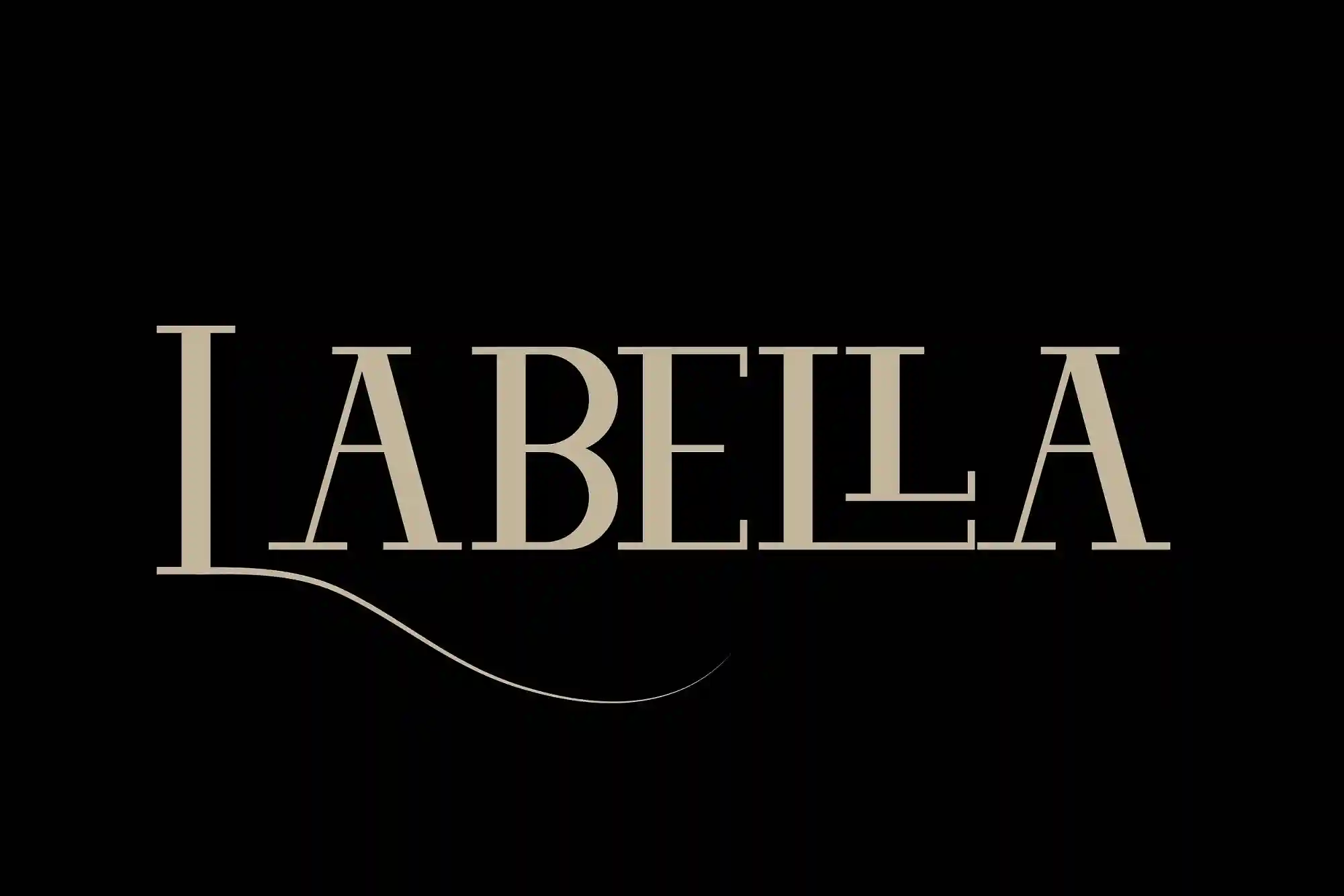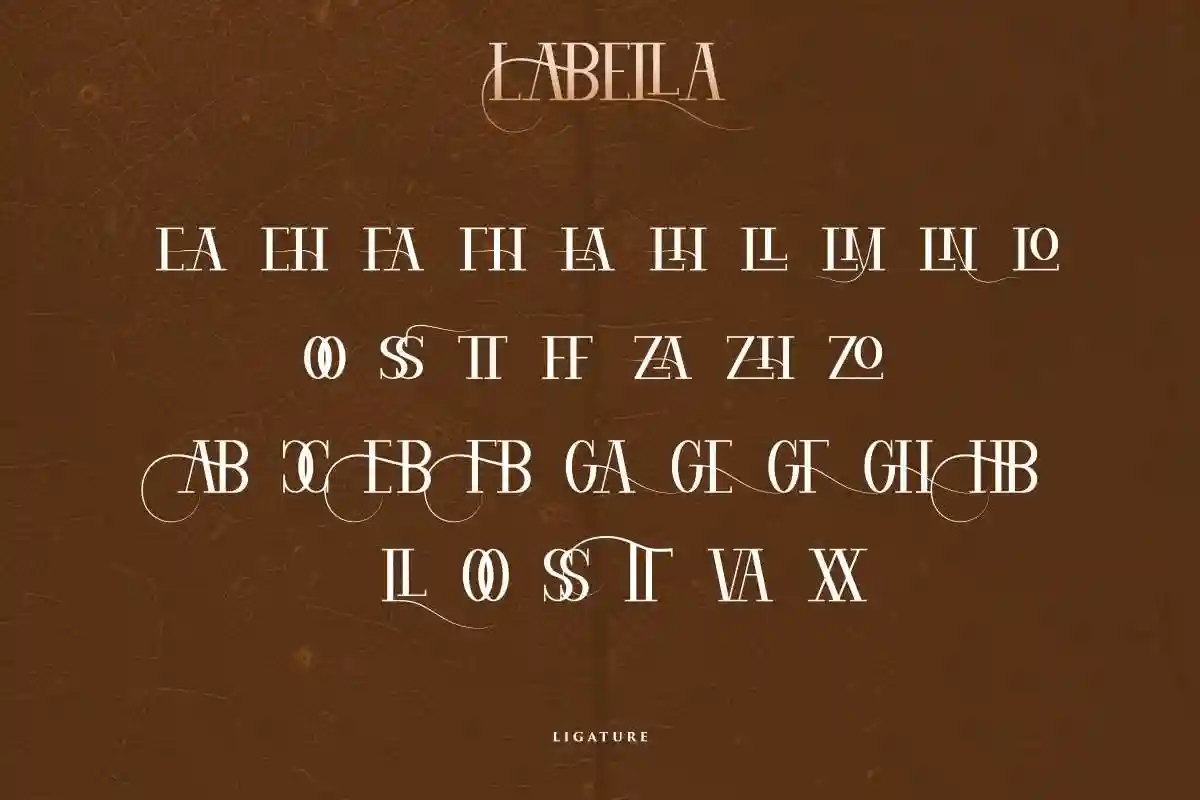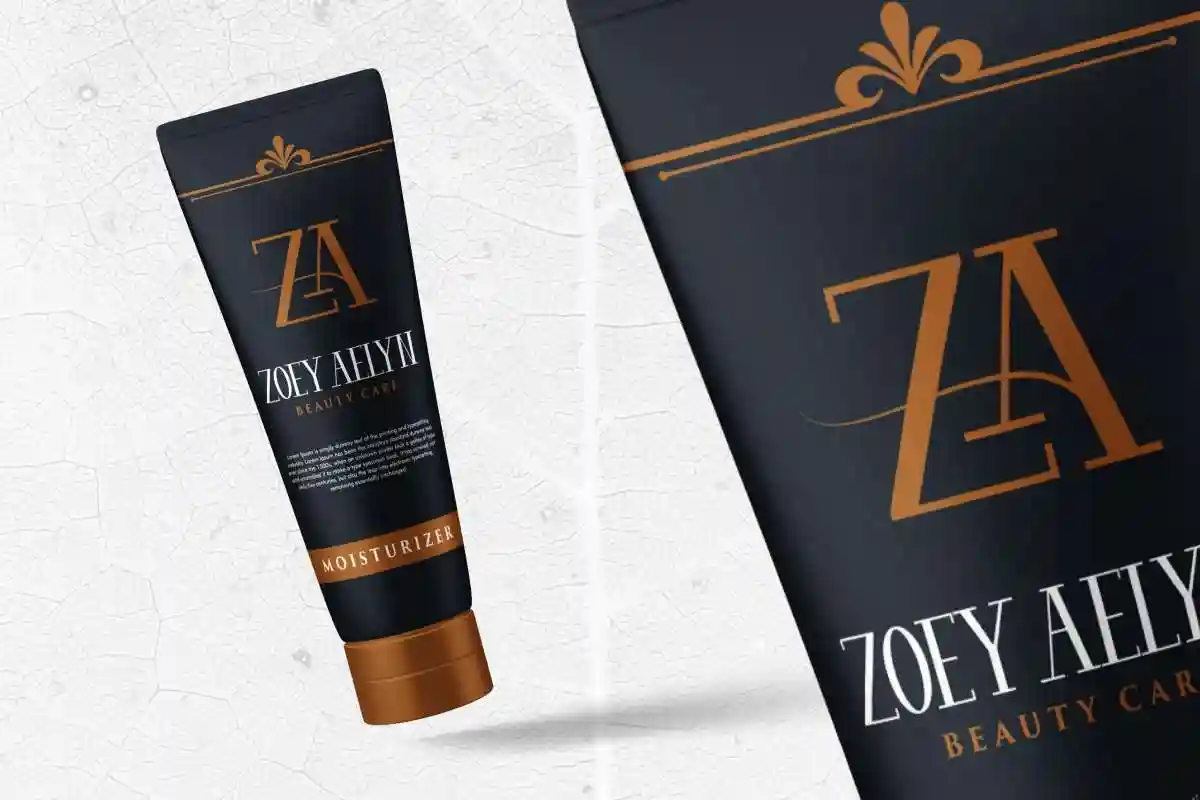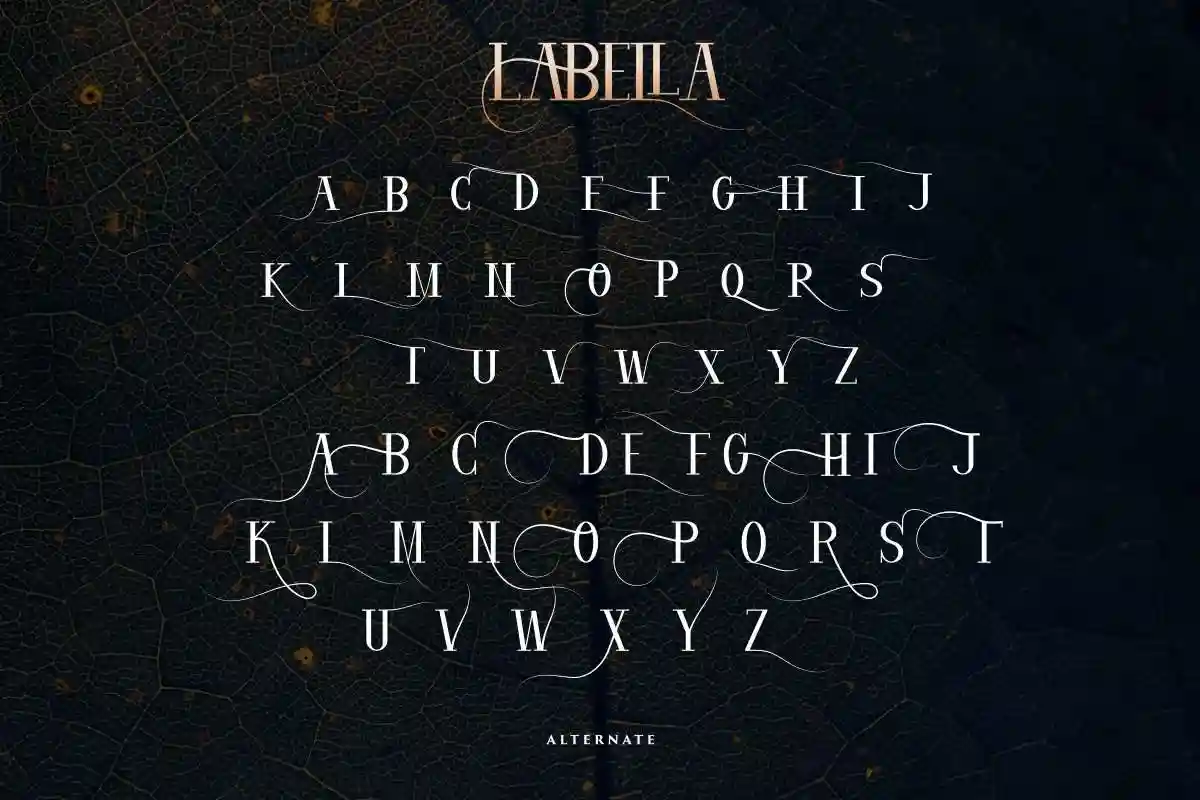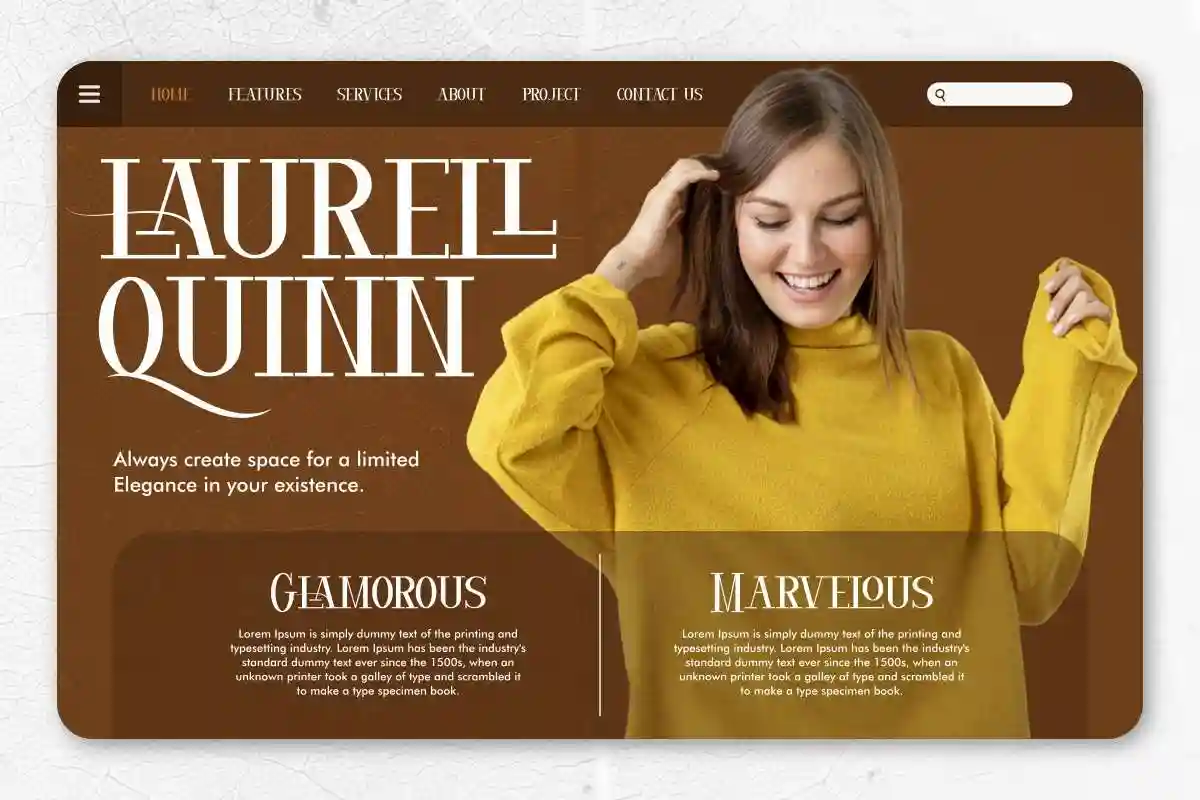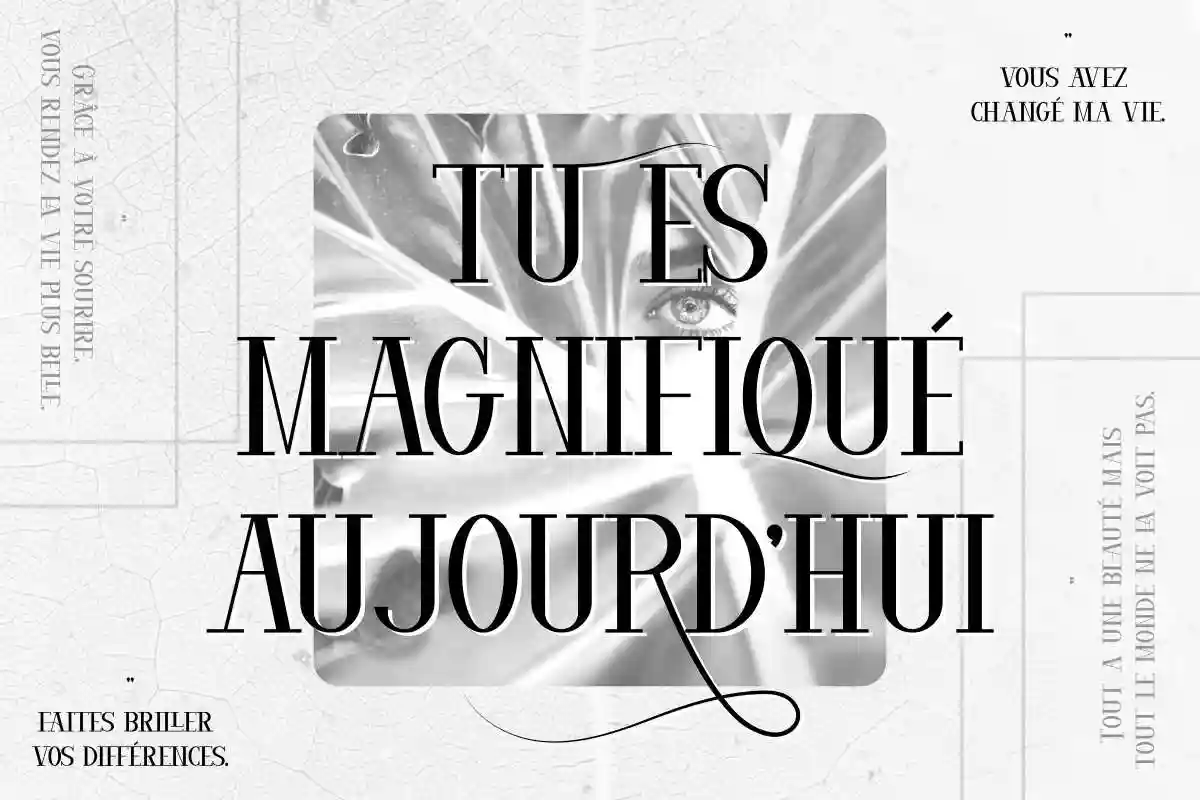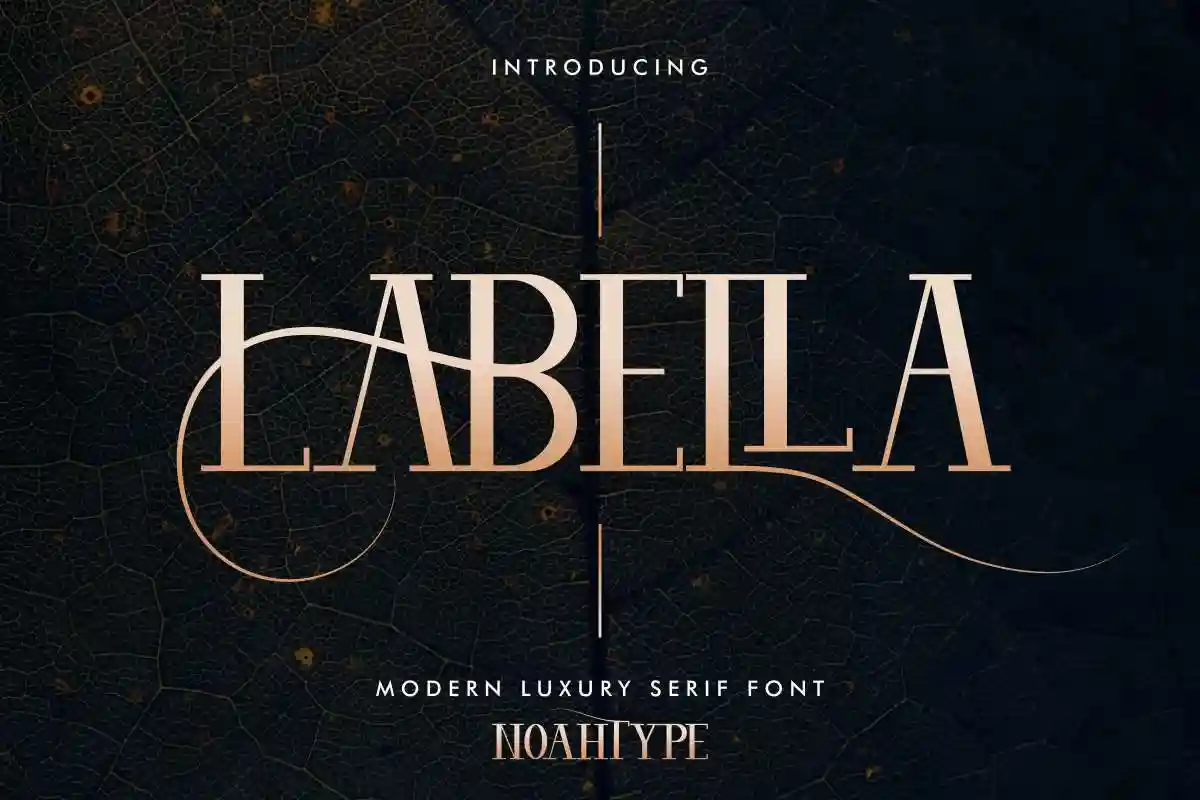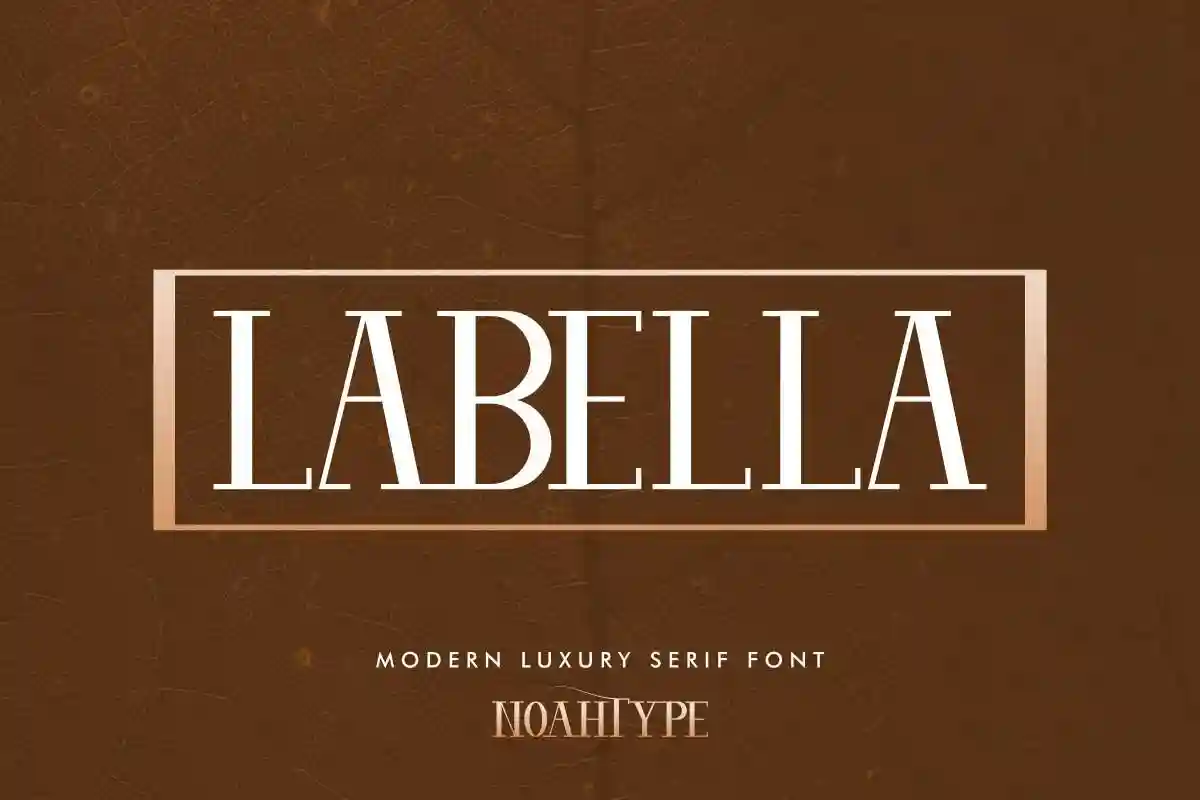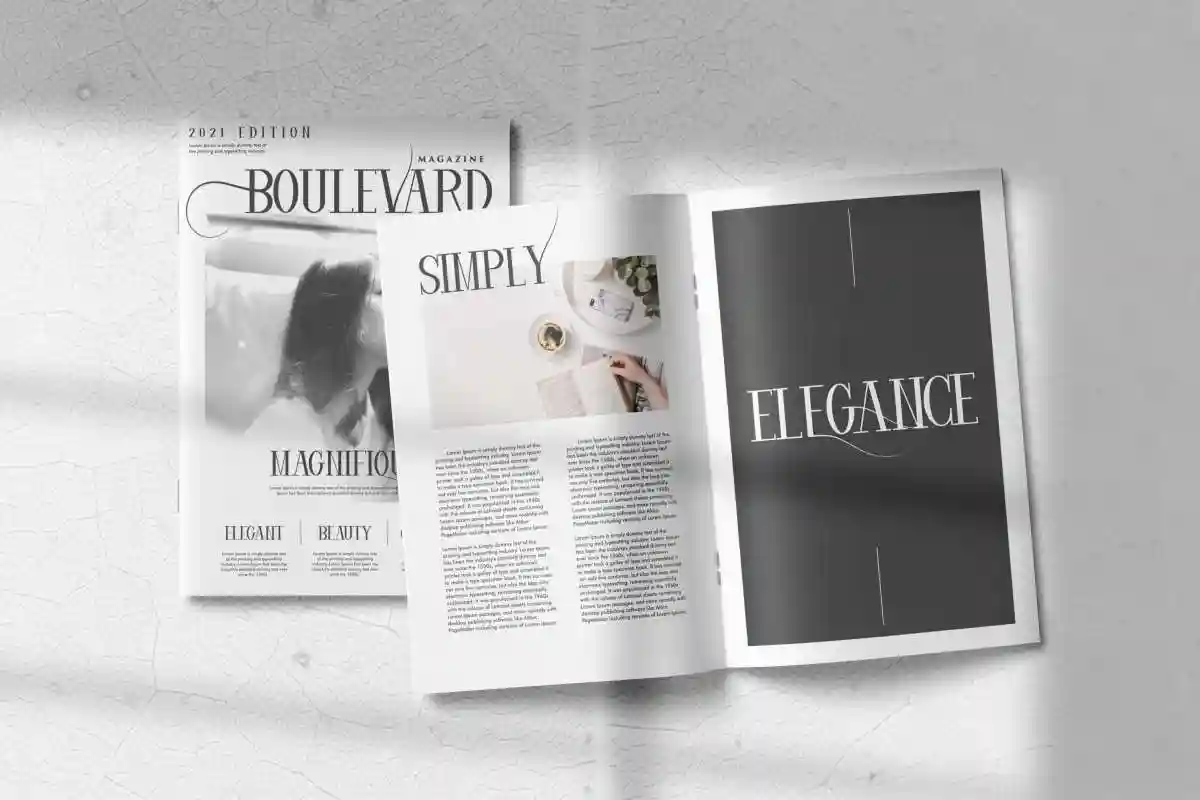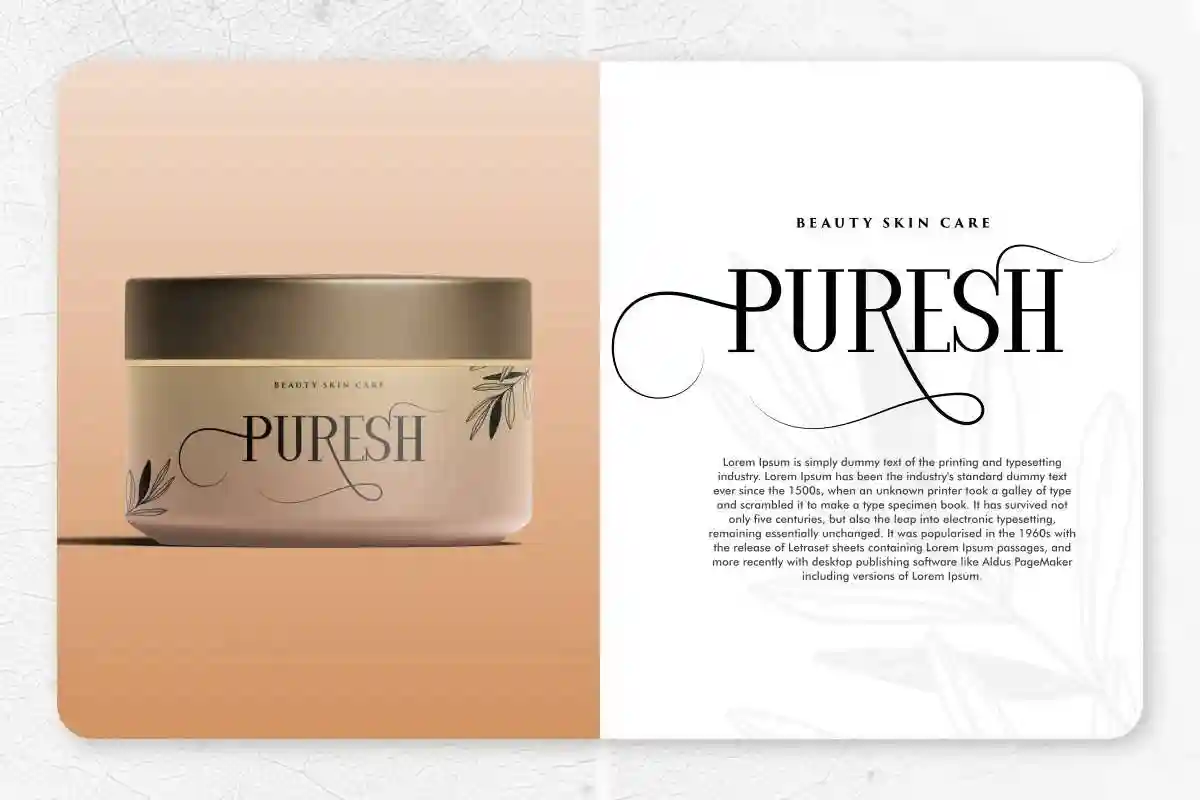
Labella Classic Font
Labella is a classic stylish display font with stunning style. The font was inspired from vintage classic lettering. It has a unique style that will bring the special effect to the design. It will works for wedding, branding, girly, artist, make up, and any other things. Labella  includes full set of Uppercase and Lowercase Basic Characters, Numerals and Punctuation. You can also alternate characters or combine it like we did on the cover, so you will great even more unique and special font. The font is perfect for many projects, headlines, logos, poster, tittle, products, etc